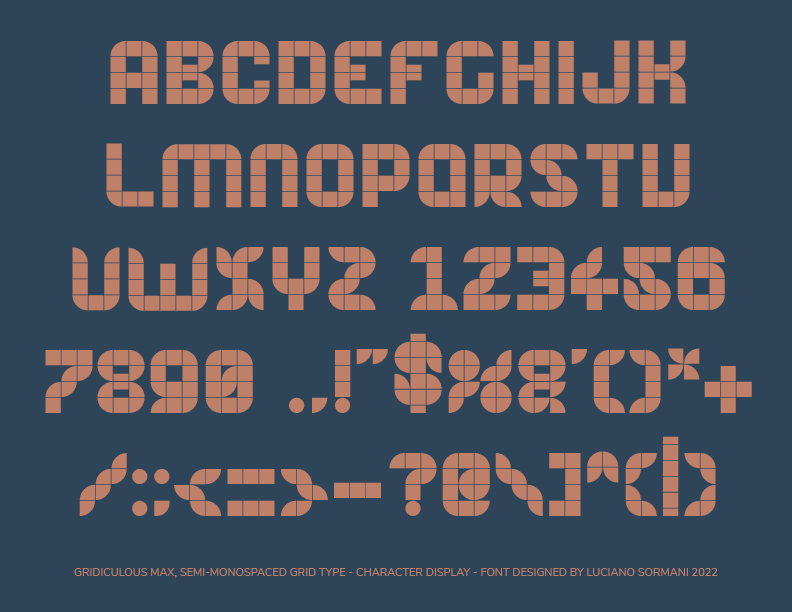
Font name: | Gridiculous Max |
Author: | Luciano Sormani |
Note by Luciano Sormani | |
Gridiculous Max. modern, semi-monospaced grid font, great for logos, sci-fi graphics, and infographics. Retrofuturistic vibes. |